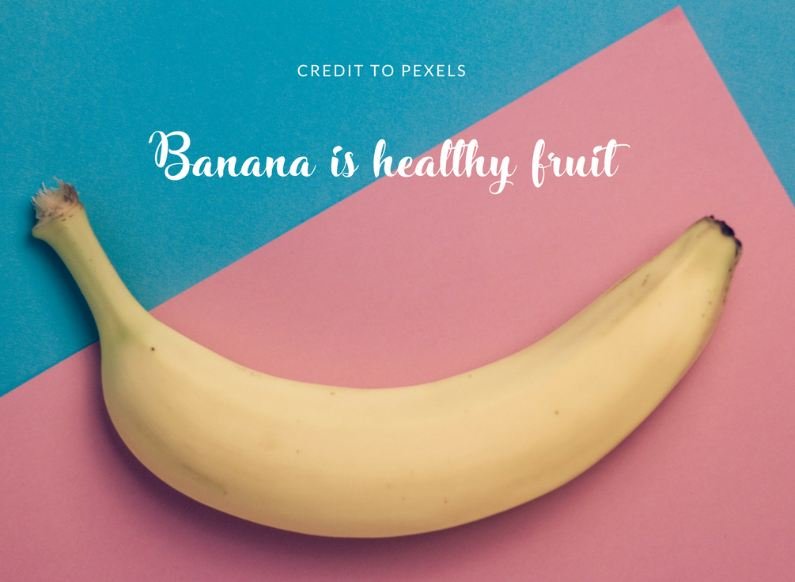
Stardust Adventure Font is a script calligraphy font that became designed via octotype. This font has a very catchy look and fashionable font particularly for your picture layout, print or emblem layout initiatives.
For the reason that an awesome, more good-sized part begin utilizing this pricey textual fashion font that is similar to max expert for unique undertakings.
The stardust textual content fashion own family has joined six stunning styles, including regular, mild, and formidable, along 3 italic editions. It’s far to be had in adobe and different software.
This tremendous font has available best in a single standard variety with actual kind abilities. And this normal kind has to contain 427 glyphs along with facet a thousand gadgets in line with em.
Moreover, it has 389 characters and helps many international languages. In this method, it will defiantly artwork properly in every hassle.
Those 3 patterns have 1027 wide variety of glyphs like shorelines font with truetype highlights. It’s a freestyle, as indicated with the aid of the advanced world want. It is a special valentine typefaces.
Going to make use of it for t-blouse printing will not be a bad notion. I remember this stylish font will help you in creating a remarkable and awesome design that make yourself-comfortable at what you had finished.